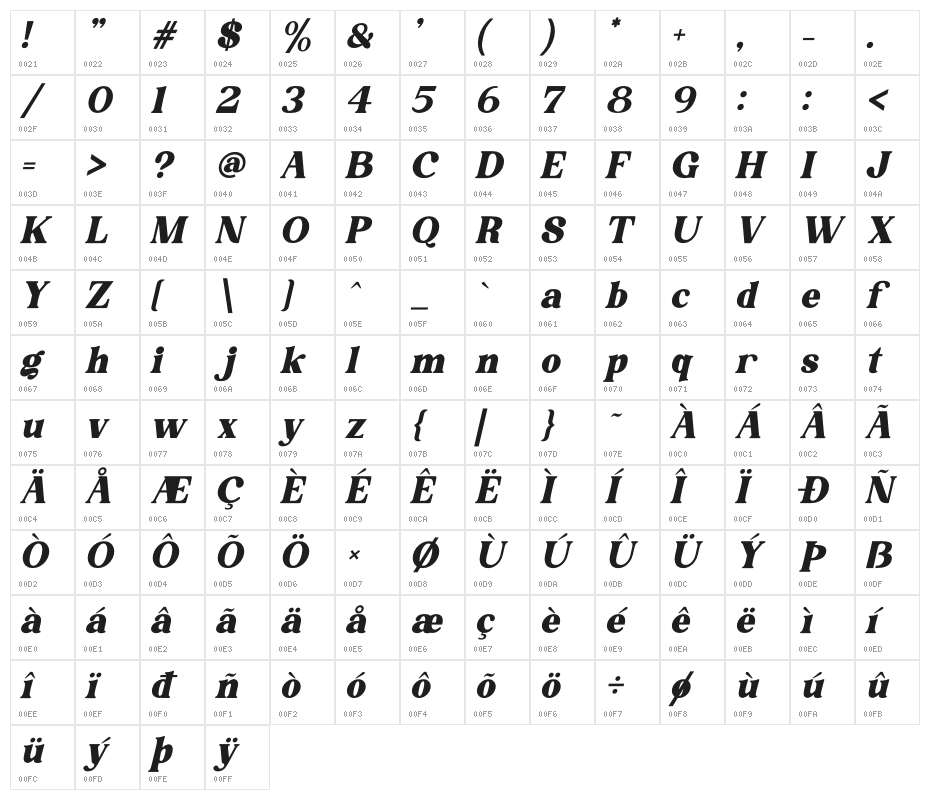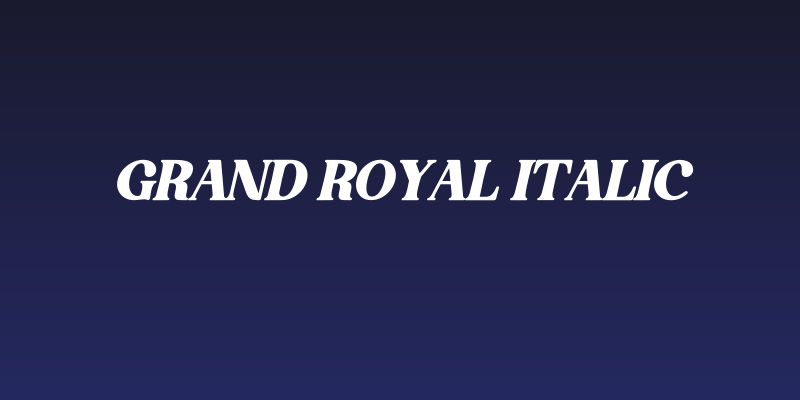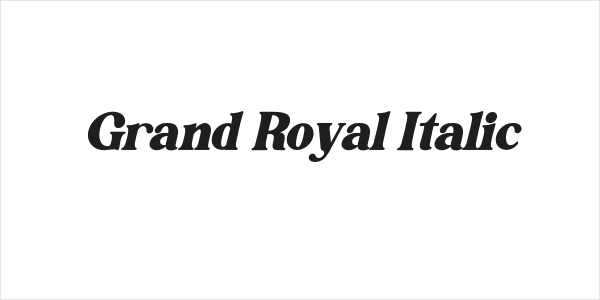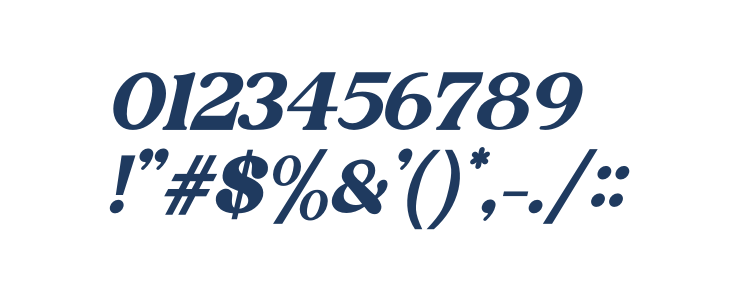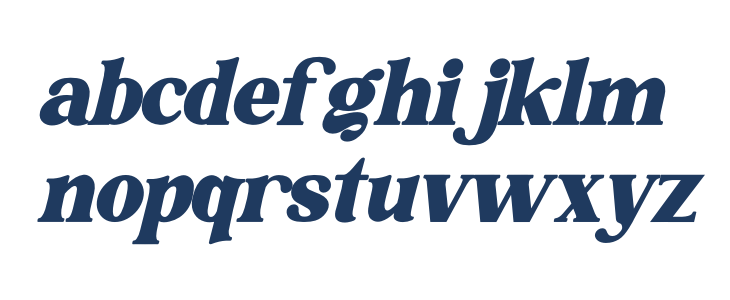
Grand Royal Italic Font
Grand Royal Italic Description
This font exudes a sense of elegance and sophistication with its italicized form and bold strokes. The letters are designed with a classic serif style, featuring smooth curves and sharp edges that give it a regal appearance. The uppercase letters stand tall with a slight forward slant, while the lowercase letters maintain a consistent flow, enhancing readability. Numbers are bold and clear, making them stand out effectively. Special characters are crafted with the same attention to detail, ensuring a cohesive look across all elements. The overall design is both timeless and versatile, suitable for a variety of applications.
| Proposed Projects | Ideal for luxury branding, formal invitations, editorial headlines, and elegant packaging designs. |